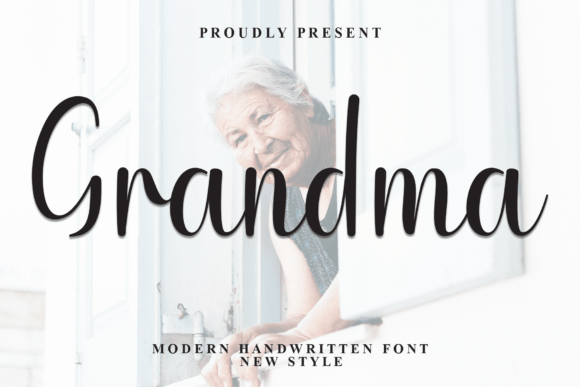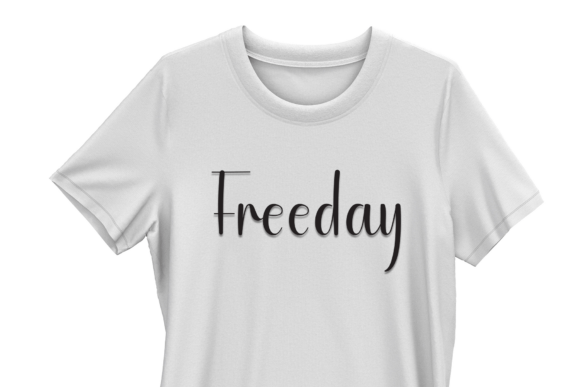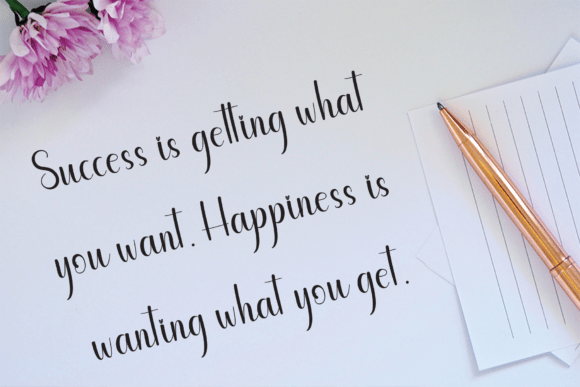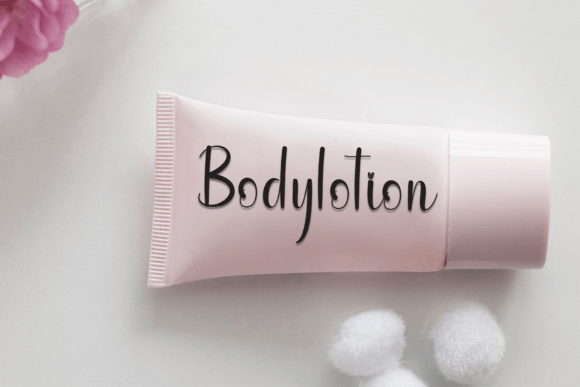
Grandma Font
About the Grandma Font
Presenting Grandma Font, a unique and stylish typeface that will make your work stand out. Welcome the engaging character of our handwritten display font, radiating a welcoming and relatable aura. Overflowing with lovable charm, this font strikes a wonderful balance between fun and sophistication. Its elegance reconstructs the appeal of wedding invitations, enlivens greeting cards, and throws in a dash of cheer to designs yearning for a perky touch. Revel in its distinctive mixture of sweetness and amiability, and unleash your imagination with this enchanting font.
Grandma Font’s playful yet elegant style makes it ideal for headlines, short text blocks on invitations or greeting cards, and logos needing a touch of friendly approachability. It excels in branding for small businesses focused on handmade goods, artisan crafts, or family-oriented services. However, its decorative nature makes it less suitable for body text or UI elements where readability is paramount.
The font’s core personality is best described as cheerful and approachable, conveying a sense of warmth and nostalgia without being overly childish or overly formal. This makes it a versatile choice for projects aiming for a friendly, inviting aesthetic.
Grandma Font Usage Examples
Grandma Font Example